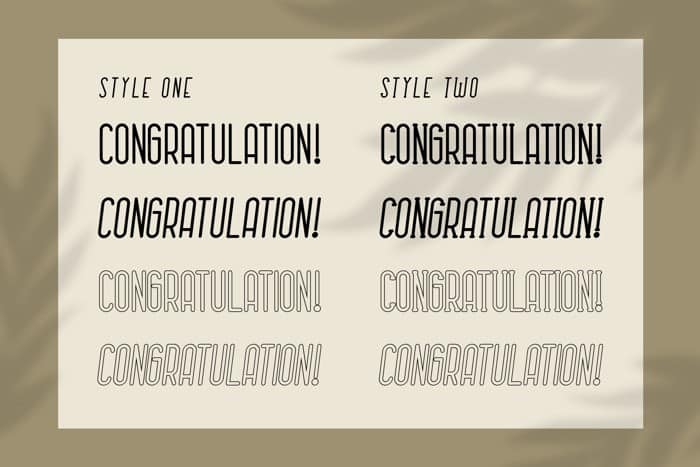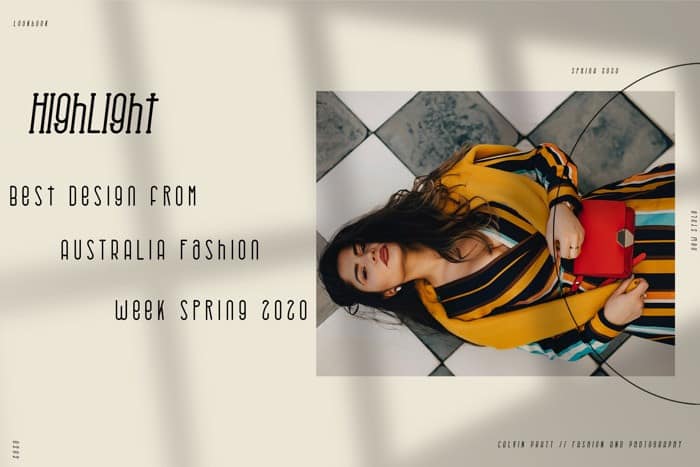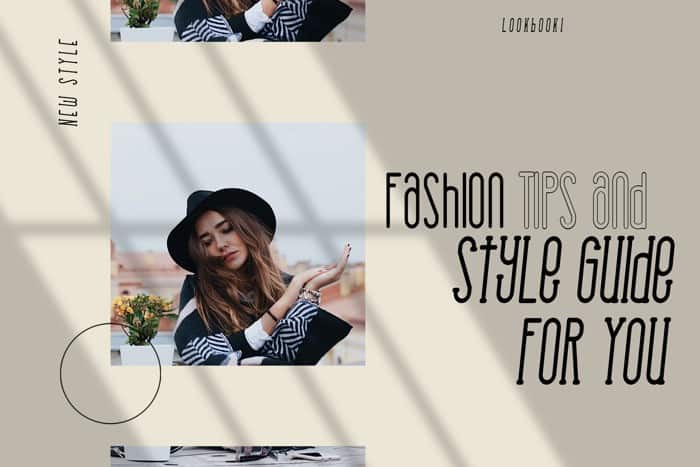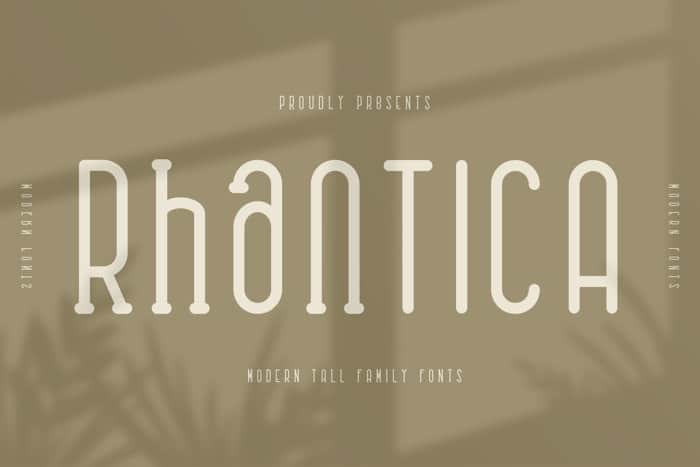
Rhantica Display Font build with perfect contour and comes with 2 style Regular and Serif. also have a outline font too. Made from font designer named Crump Hand. It’s geometric, structured and straightforward, has a number of rules and limitations, but at the same time it is elegant and lively. Some rules are broken, some rules have exceptions – these all make the font behave like an independent graphic element.